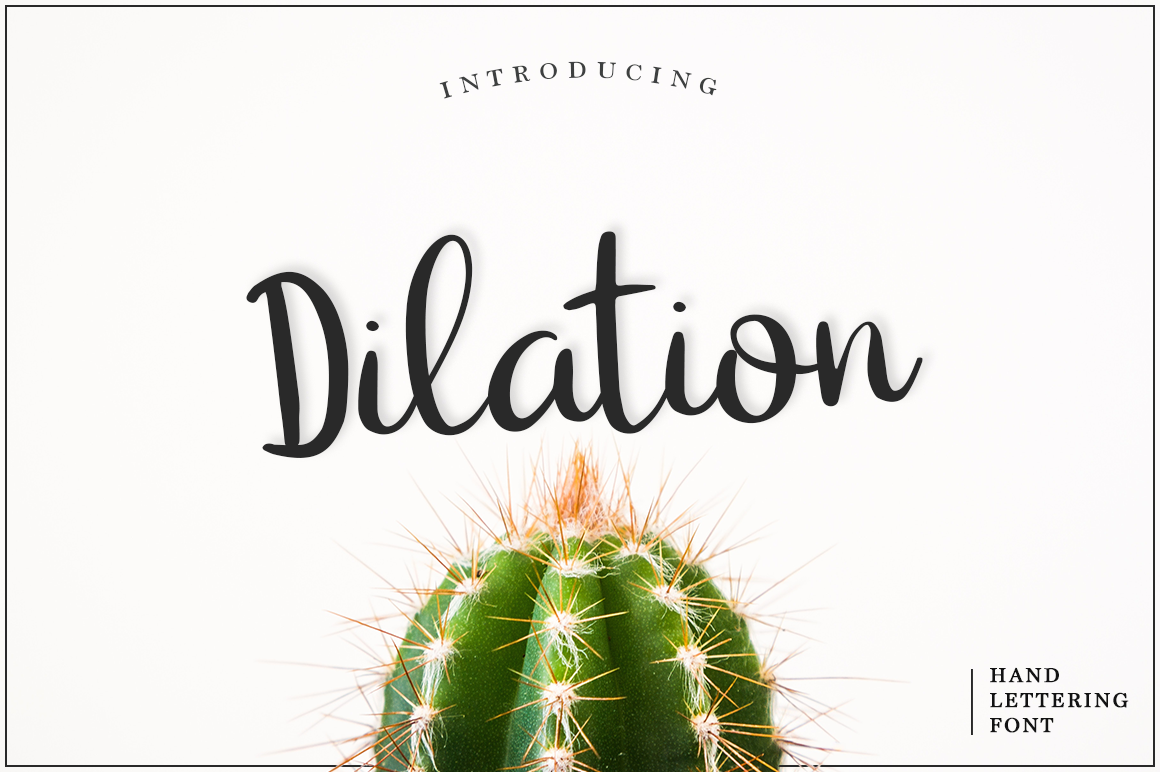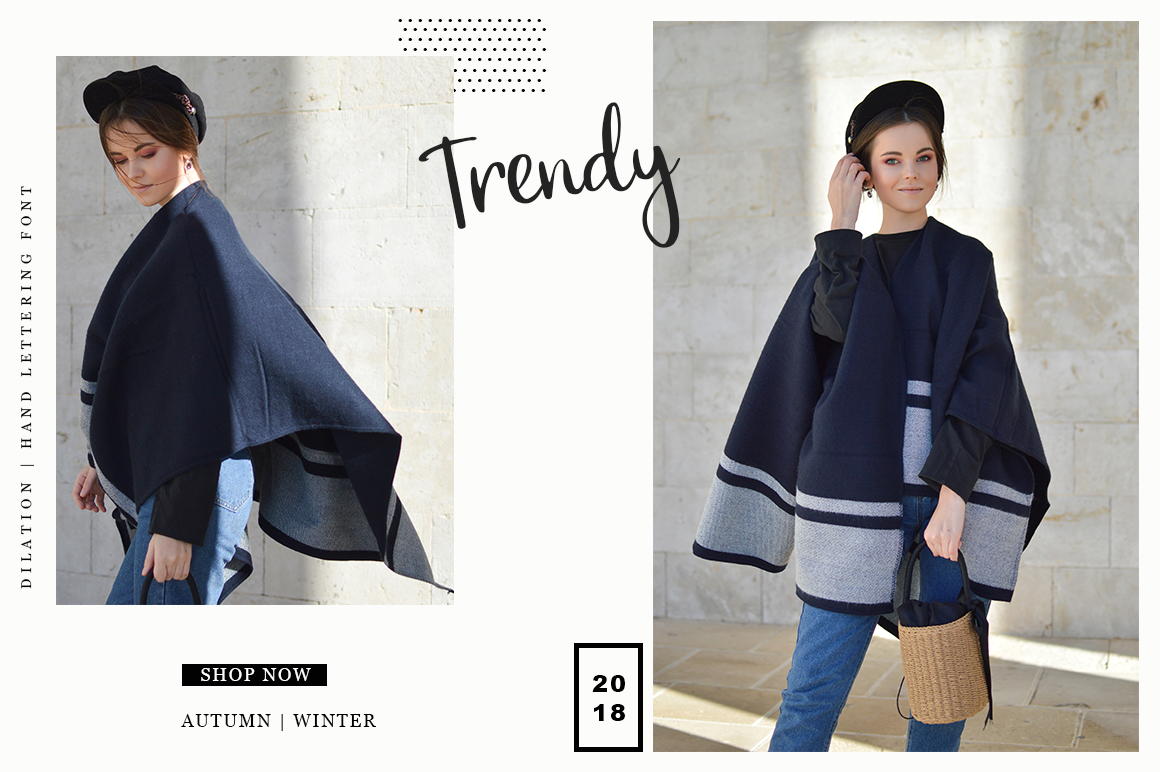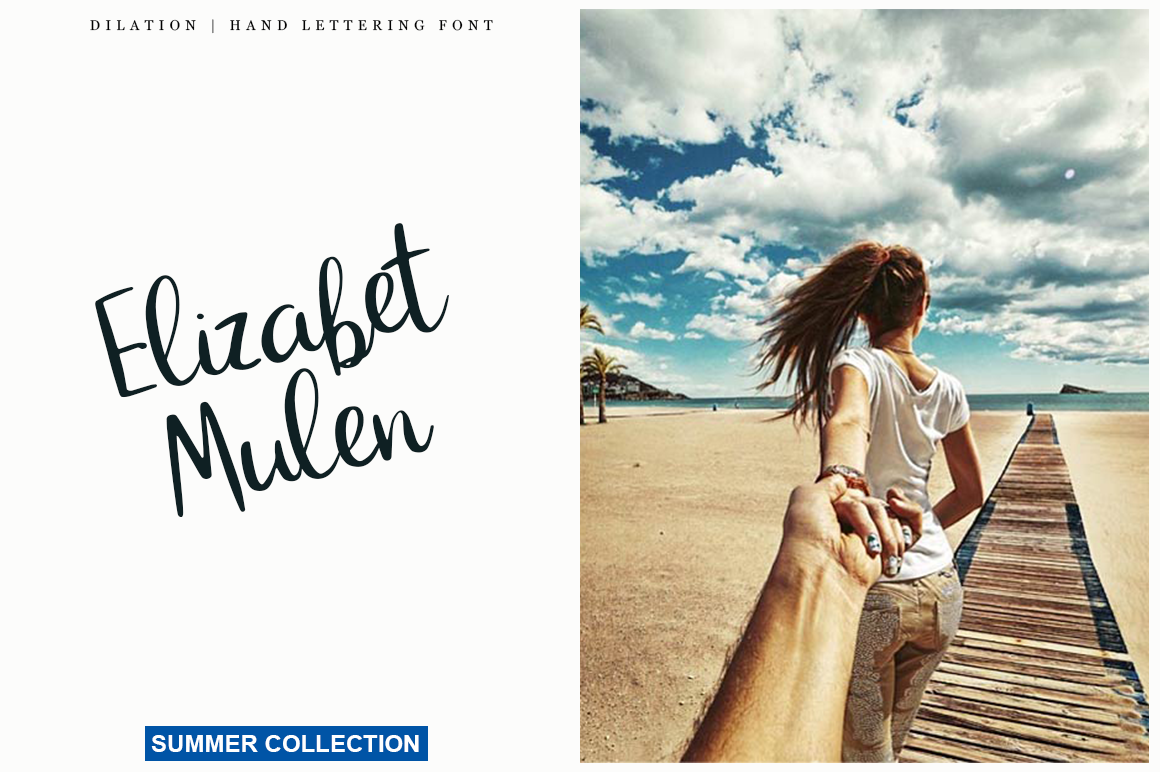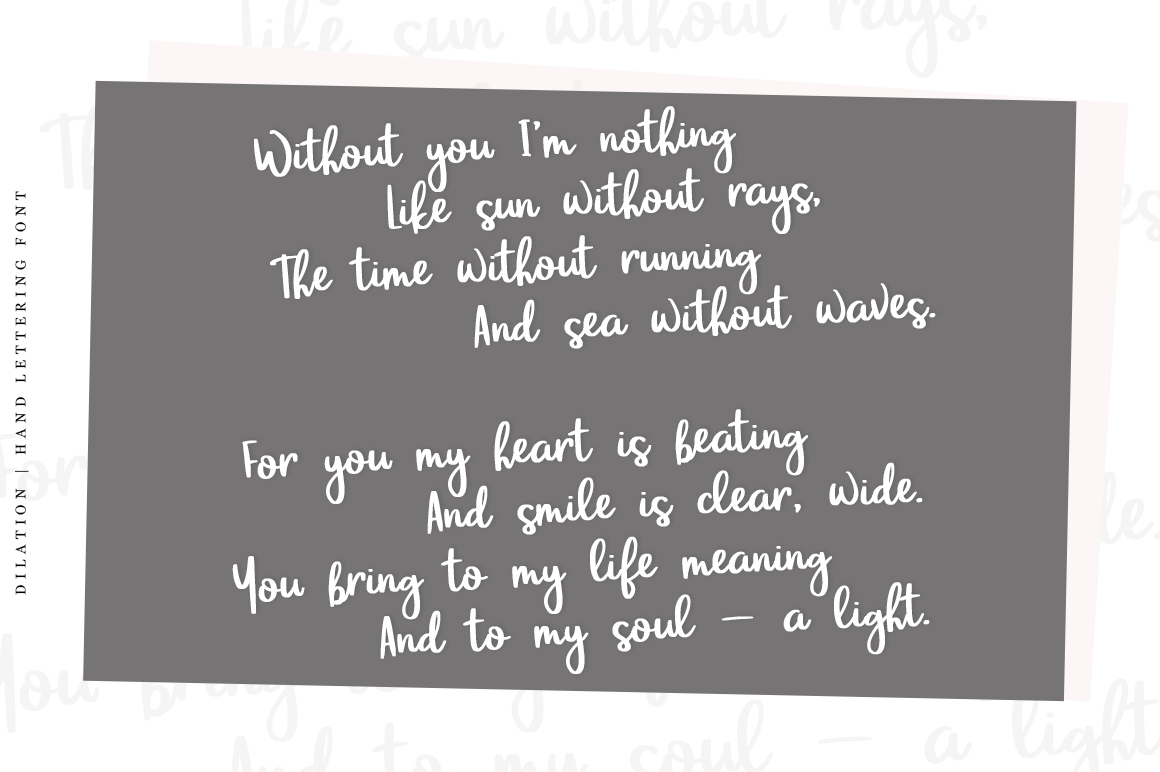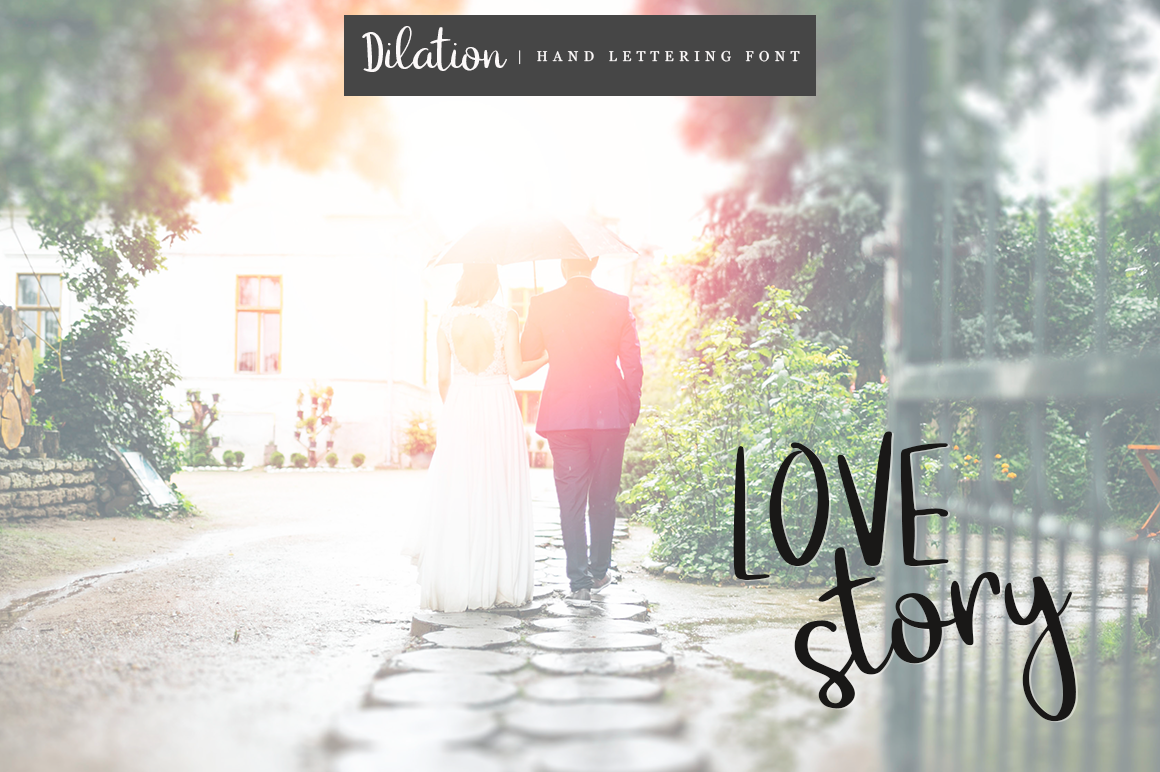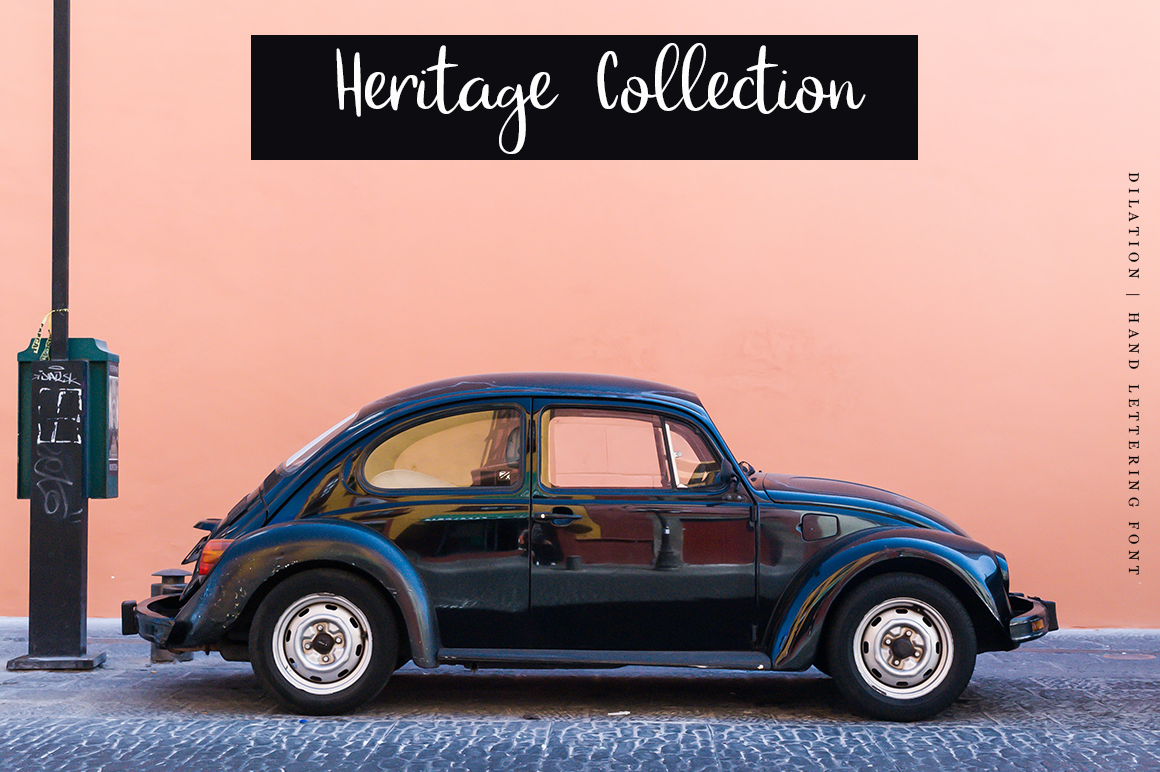
Dilation Font
About Dilation Font
Dilation is a fresh, handmade calligraphy font that is ideal for branding and adding some trendiness to your projects. This font has a highly brandable appeal and works in a wide range of styles.